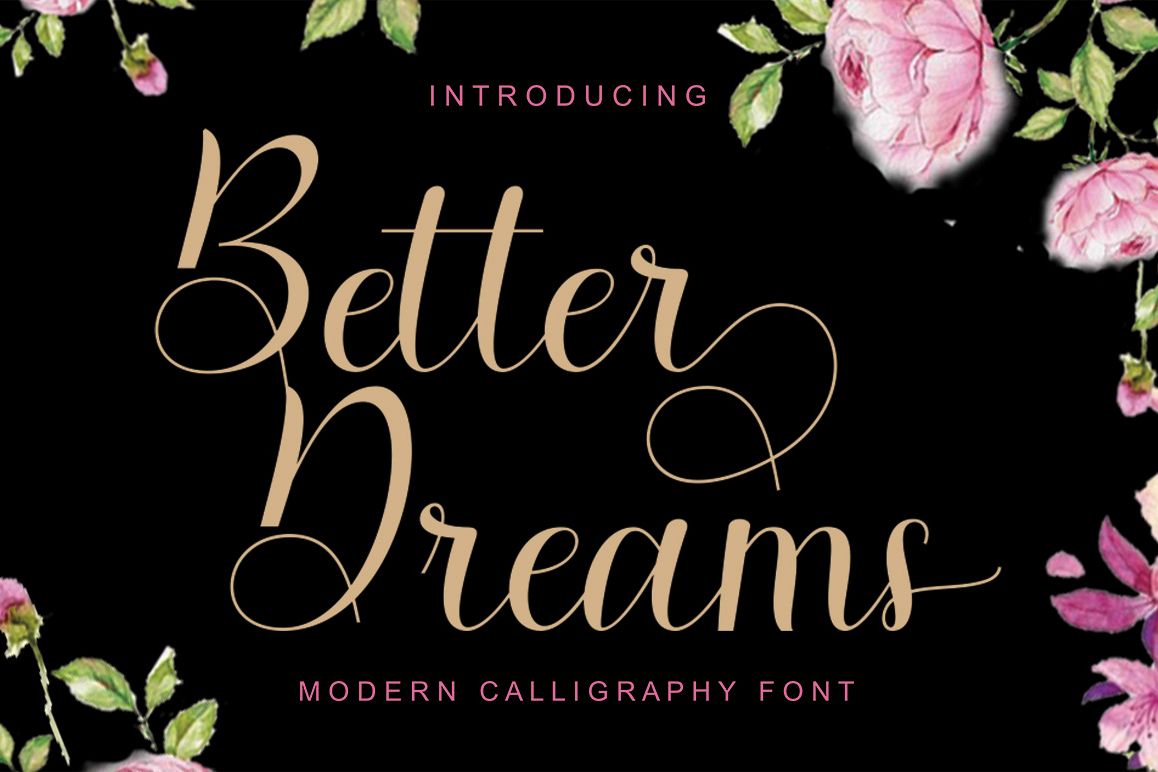
Better Dreams
Better Dreams Script is a modern handwritten font with handwritten suitable for logo, product packaging, branding, headlines,  labels, book covers, posters, quotes and more.This font replaces all lowercase letters, also comes with ligatures and unique and beautiful alternatives as well as international support for most western languages. Fonts include (OTF & TTF).How to access all of the alternate characters: